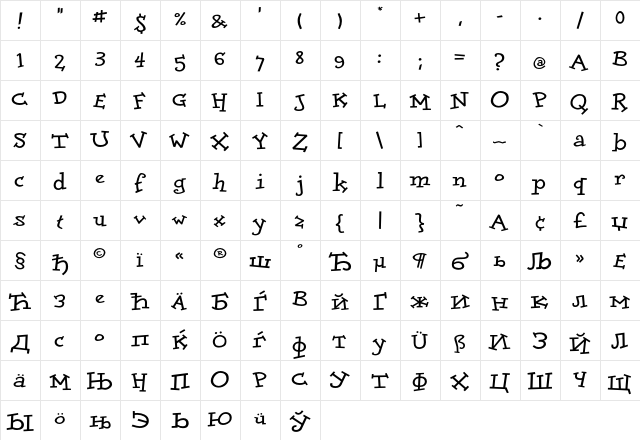
DoloresCyG Bold
Design Context for DoloresCyG Typeface
DoloresCyG is a composed and adaptable typeface that performs quietly and consistently across a wide range of design contexts. The heavy weight commands attention and anchors typographic hierarchies.